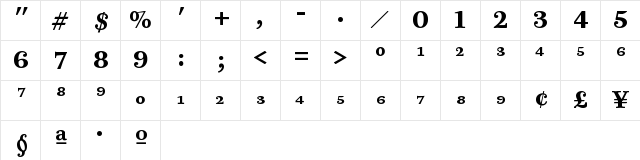
PB9TTP-BoldFrac Regular
Design Context for PB9TTP-BoldFrac Typeface
PB9TTP-BoldFrac offers clean, dependable letterforms without strong stylistic allegiance, making it a practical choice for designers who need flexibility. Its bold stroke weight gives it real presence on the page.